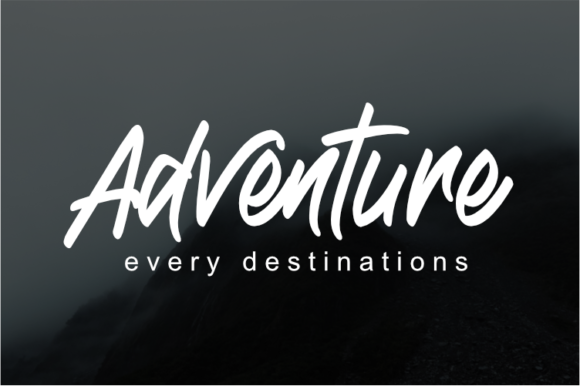
The Perfect Match for Your Next Design Project
Have you ever stared at a blank page, waiting for inspiration to strike? The blank canvas staring back at you can be intimidating, but what if you had the perfect tool to bring your ideas to life? For designers, finding that perfect font can make all the difference between a mediocre project and a masterpiece. And that’s where the Antiquity Blick Font comes in – a stunning handwritten font that’s sure to elevate your designs.
With its PUA encoding, you’ll have access to a wide range of glyphs and swashes, giving you endless possibilities to create unique and captivating designs. Whether you’re working on a wedding invitation, a children’s book, or a marketing campaign, the Antiquity Blick Font is the perfect addition to your design arsenal.
Antiquity Blick Font Key Features
- Font Family: Antiquity Blick
- Unique Characteristics: Elegant, cursive script with subtle flair and texture, reminiscent of ancient manuscripts
Antiquity Blick Font Review
At first glance, the Antiquity Blick Font seems to have a lot going for it. Here are some of its strengths: ✨
- Unique and intriguing design, perfect for adding a touch of elegance to any project
- Well-suited for titles, headings, and other display text
- Has a nice, classic feel that’s reminiscent of traditional typography
- May be difficult to read in small sizes or for extended periods of time
- Lacks the clarity and precision of more modern fonts
- Not ideal for body text, as it can be quite ornate and distracting
Overall, I think the Antiquity Blick Font is a great choice for projects where you want to add a touch of sophistication and elegance. However, it’s not the best fit for projects that require a clear and readable font. If you’re looking for a font that’s a bit more understated, you may want to consider other options. But if you’re looking to make a statement, the Antiquity Blick Font is definitely worth considering.
For best results, pair the Antiquity Blick Font with a contrasting background to create visual interest.
Use this font for titles, headings, and captions to add a touch of elegance to your designs.
Common use cases include: branding, advertising, and editorial design.